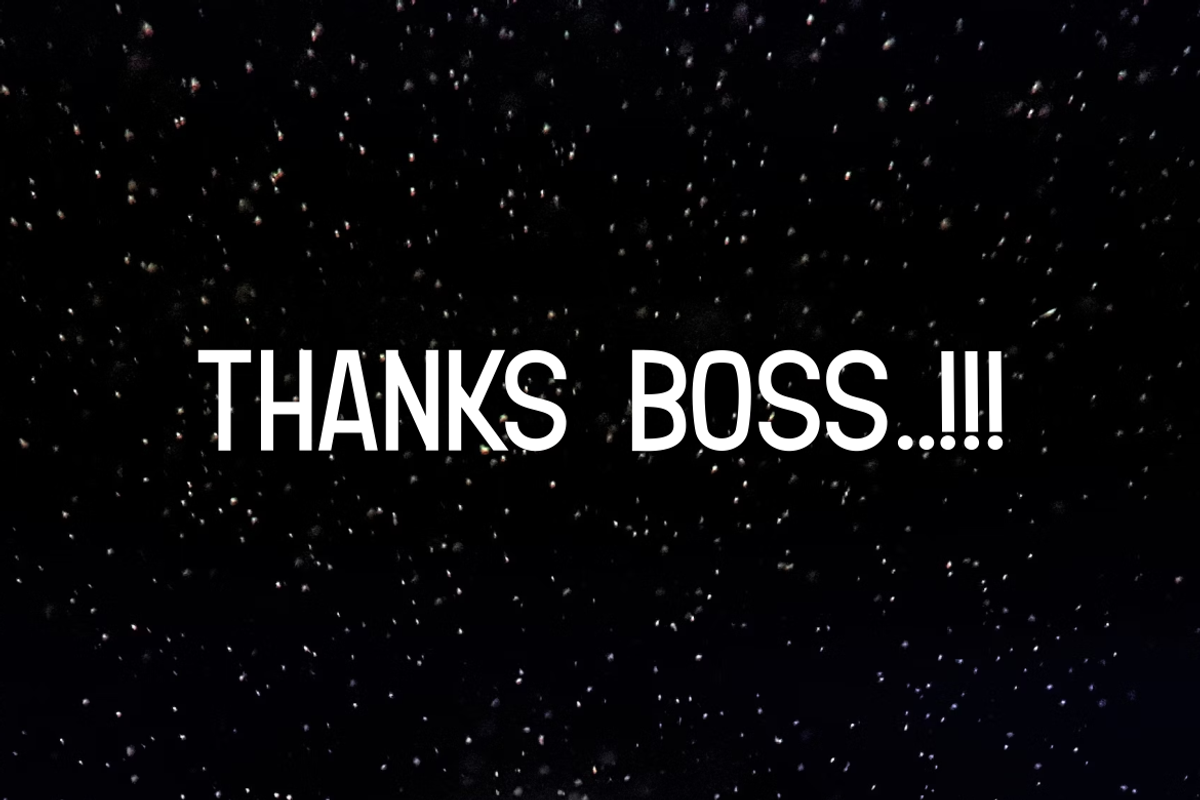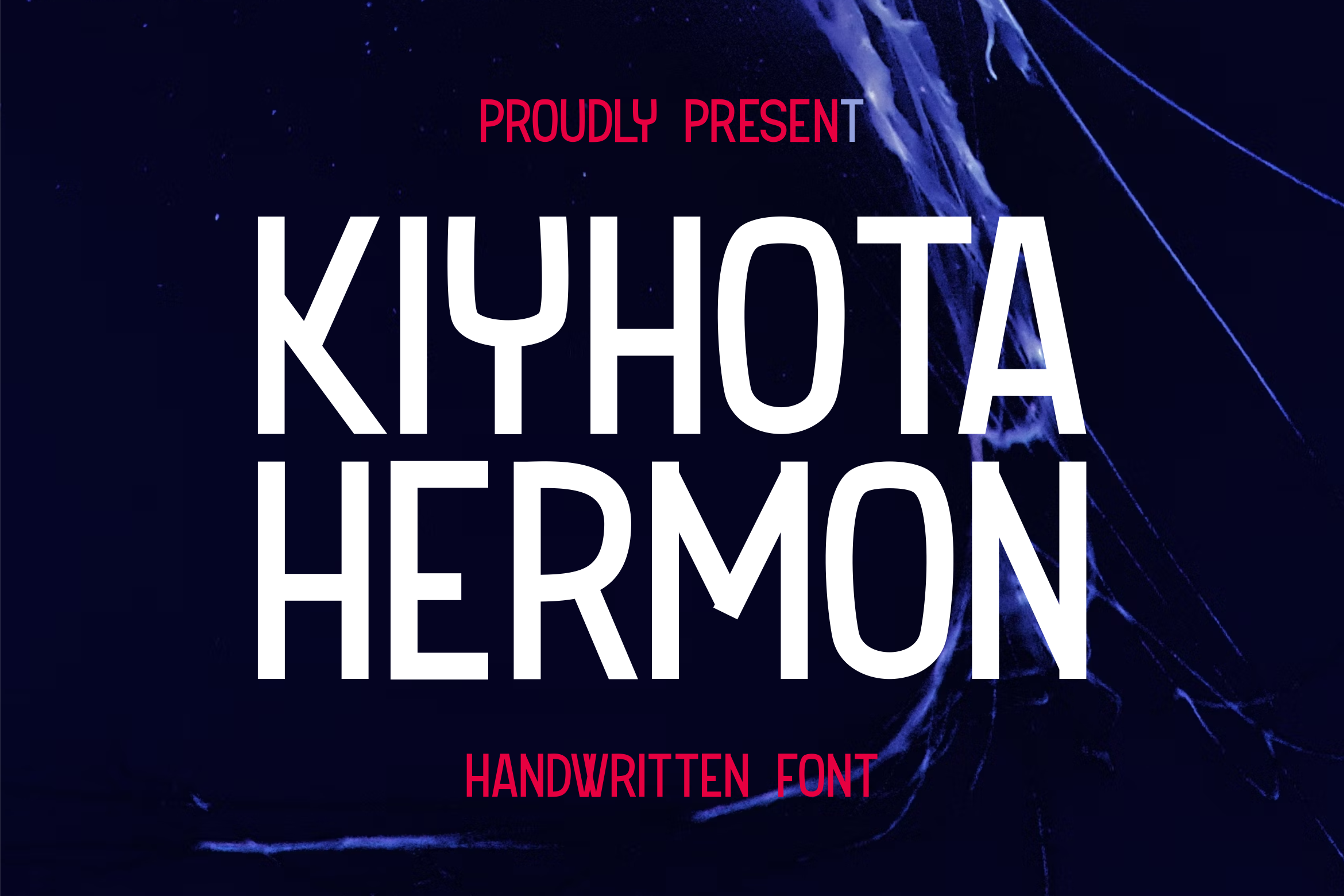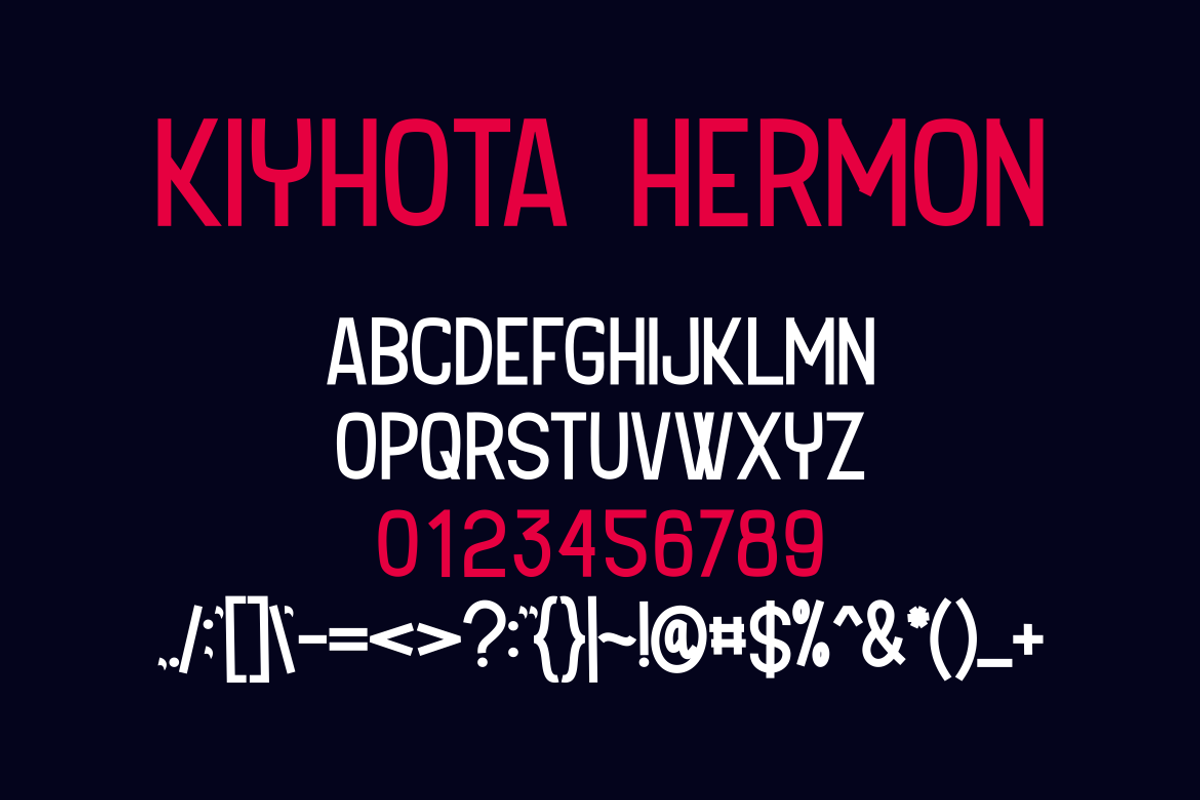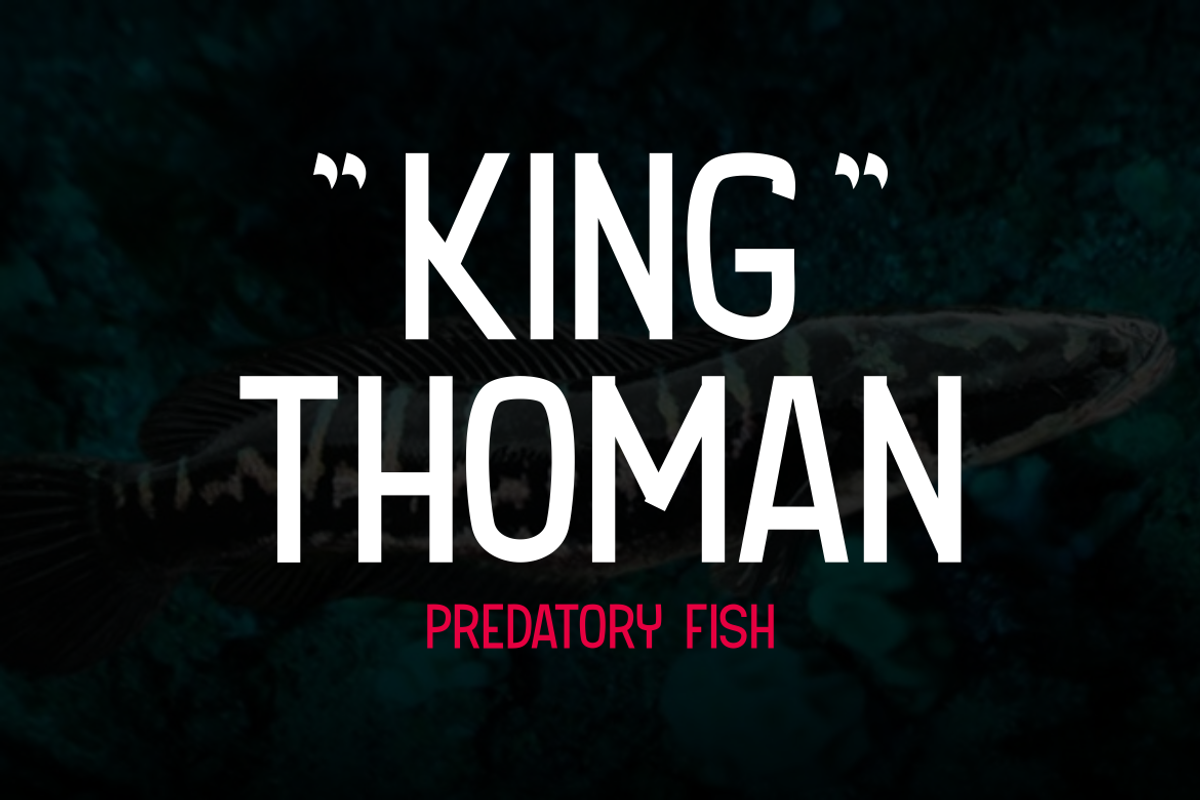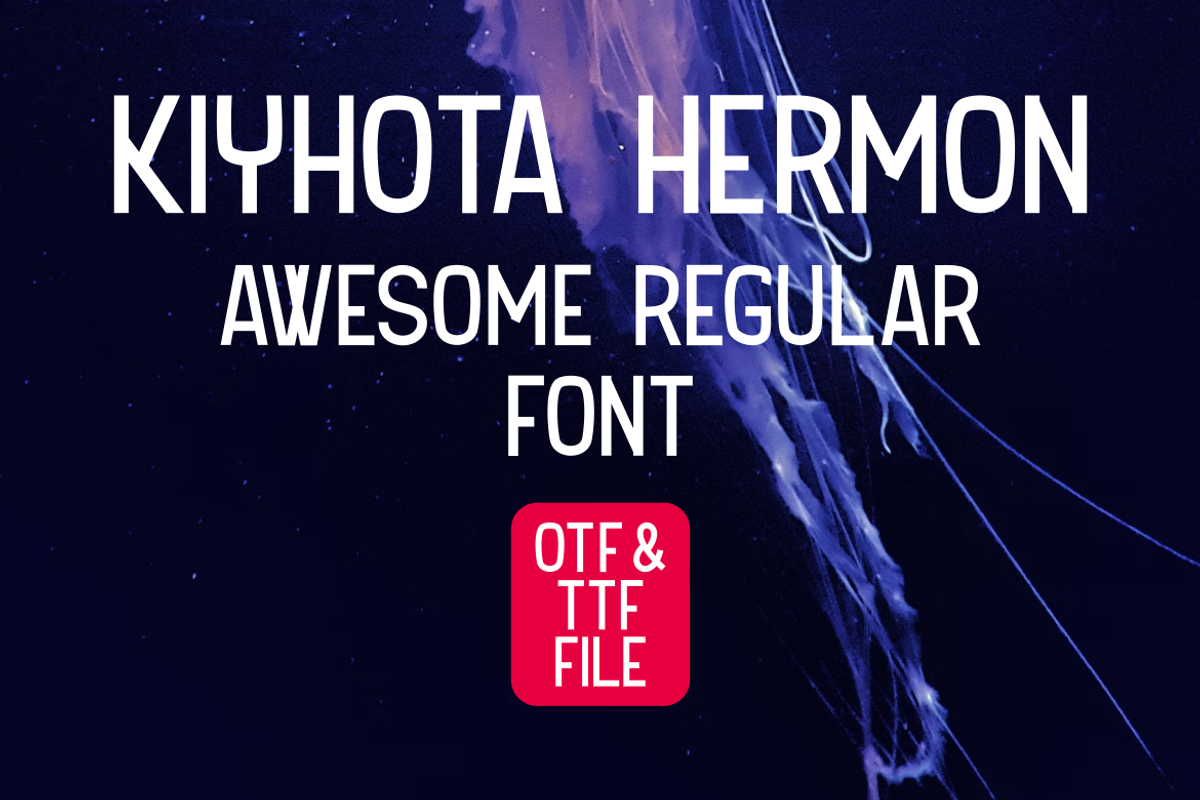
Kiyhota Hermon Font
Introducing our new product Kiyhota Hermon Font - Modern Font
Kiyhota Hermon Font - Modern Font is a bold and authentic display font. The font is suitable for any branding project like logo, esport, and many more. outstanding in a wide range of contexts.